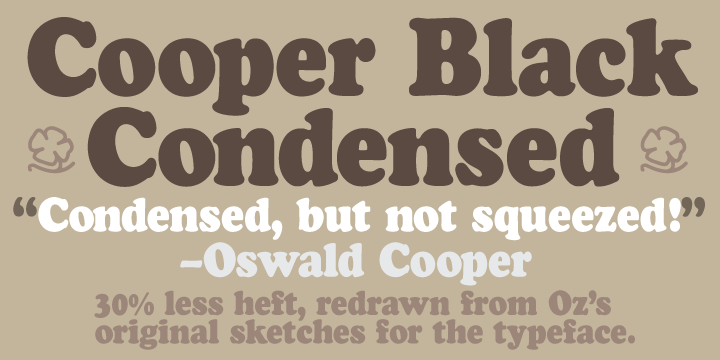
Cooper Black, the most famous and successful of Oswald Cooper’s type designs was released in 1920, following a year of development fleshing out the weight of the typeface and filling out the full character set. Cooper redrew the lowercase characters multiple times, toying with the rounded forms of the “m” and “n” and engaged in a lively debate with Barnhart Bros. & Spindler’s General Manager Richard N. McArthur over the final form as McArthur requested that the typeface be drawn bolder and bolder. Cooper famously said the face was "for far-sighted printers with near-sighted customers", and the public agreed. Sales of Cooper Black were voluminous, and Barnhart Brothers & Spindler had a difficult time keeping up with the demand for the typeface. Conservative typographers were critical of Cooper Black, though it was overwhelmingly popular, helping to shape the American advertising landscape through the 1920s and 1930s.
1925 saw the release of Cooper Black Condensed, a “condensed but not squeezed” variation on the Cooper Black theme. McArthur and Cooper had the usual lively back-and-forth over the shapes of some of the letterforms, in particularly the uppercase “Q”, resulting in a thoroughly accomplished alphabet. The first showing specimen of Cooper Black Condensed compared the new face with Cooper Black, showing that it was 20 less wide and that it promised to “show something of gentility while being able to spit on its hands and make itself useful”.
This typeface is the result of researching and faithfully redrawing characters from Cooper’s original drawings and series of engraved proofs for this typeface. The typeface includes the full range of punctuation and diacritics that fill out a full character set. The typeface has been lovingly kerned for the smoothest result in text setting.
What was the inspiration for designing the font? While researching a biographic essay for Japan’s IDEA Magazine, I came across the original proofs and drawings for Cooper Black Condensed. While a number of foundries have released interpretations of Cooper Black Condensed, they stray from the original rather dramatically in parts. Cooper is without a doubt my favorite type and lettering designer, and to bring a refined return to his original intentions is an immense gift.
What are its main characteristics and features? Cooper Black Condensed is a standalone display font. It is a round, juicy, super-personality-filled piece of graphic evidence from times gone by.
Usage recommendations: Display type or text-setting. Perfect for newspaper work, editorial design, materials intended to invoke an "old-timey" flavor, or just about anything in need of personality.